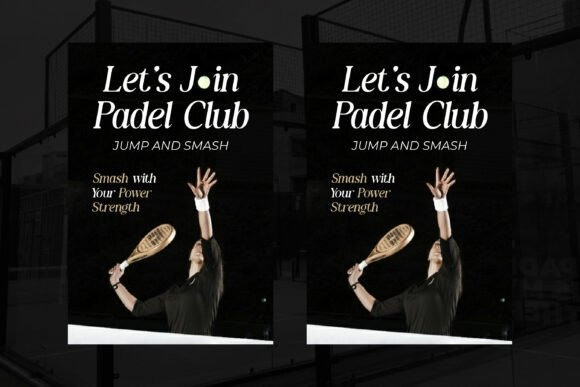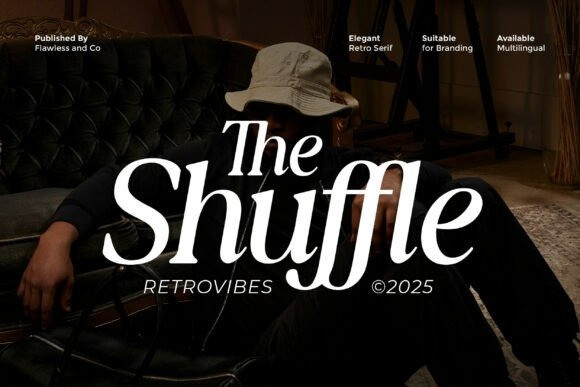
The Shuffle Font
The Shuffle Font is a retro serif font that blends vintage charm with modern elegance, crafted to deliver timeless personality in every design. Inspired by classic editorial typography and iconic retro aesthetics, The Shuffle stands out with its soft curves, expressive serifs, and refined character shapes—making every word feel stylish, bold, and unforgettable. Perfect for designers who want to bring a touch of nostalgia with a polished contemporary twist, The Shuffle delivers cinematic vibes, sophisticated energy, and a uniquely artistic presence.